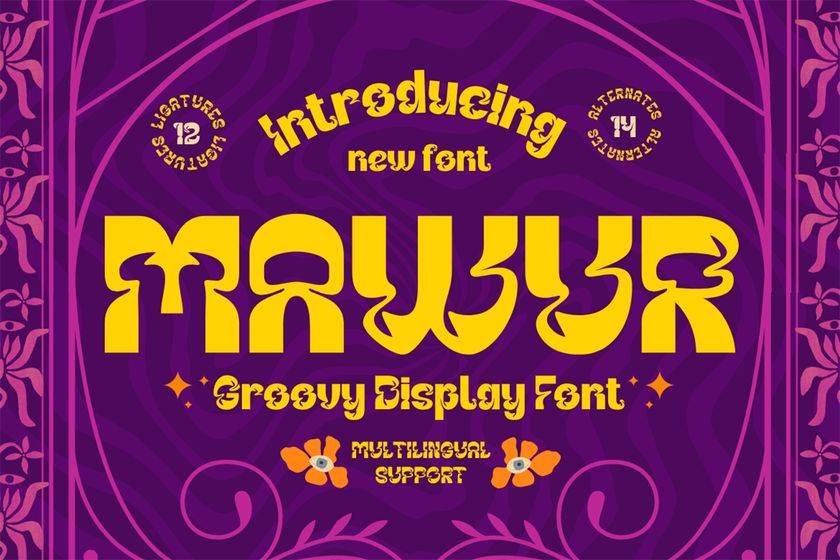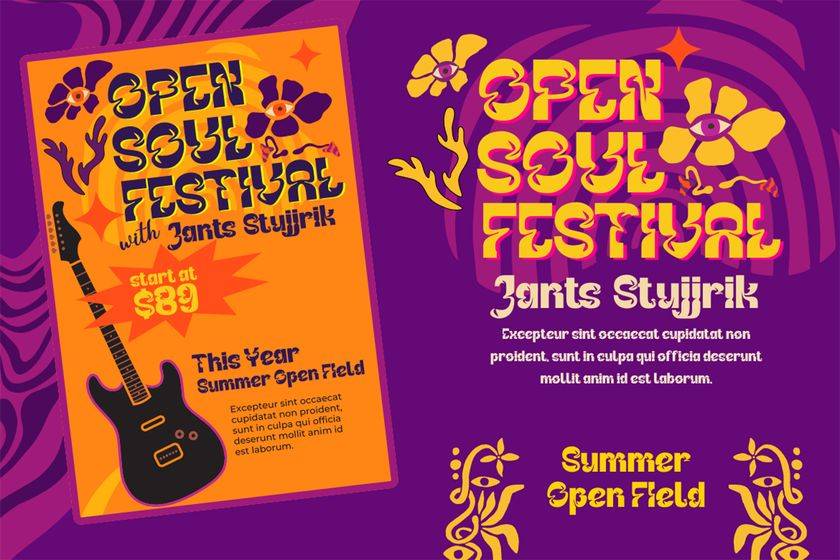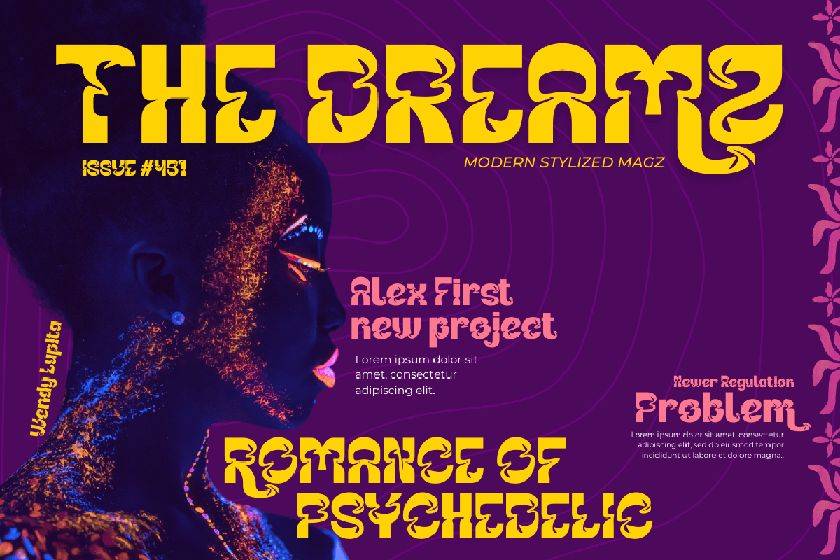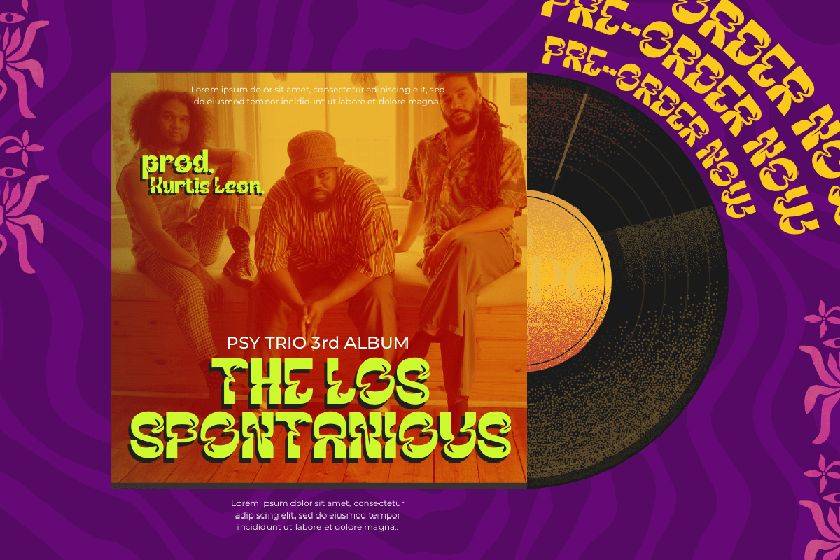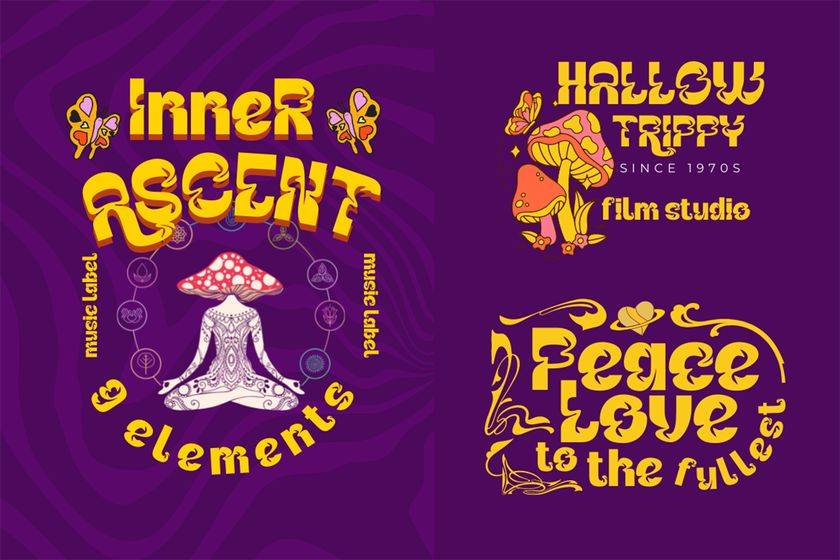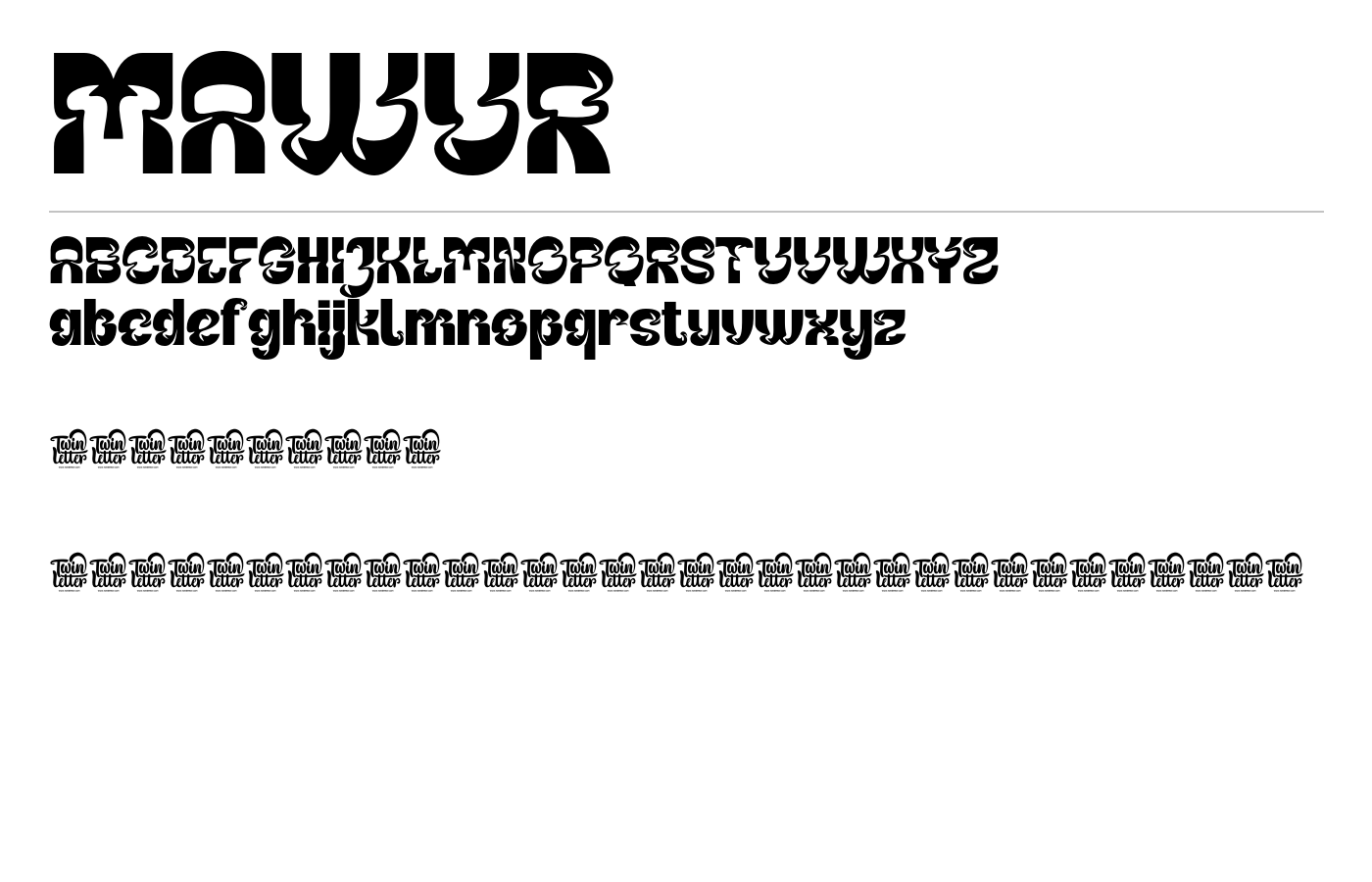
Mawur is a bold, decorative sans serif font with a striking contrast of thick and thin strokes, featuring quirky, abstract shapes that give it a modern, artistic vibe. Its heavy weight and condensed forms make it ideal for eye-catching headlines, logos, and creative posters where a unique, playful personality is desired. This font stands out best in display use, lending a dynamic and contemporary flair to fashion, music, or entertainment branding.
Mawur Font
About Mawur Font